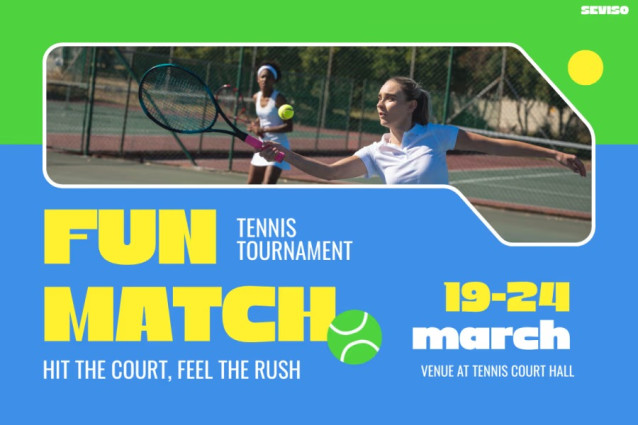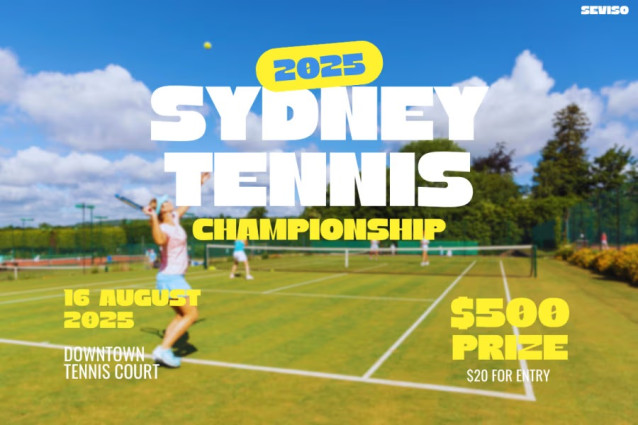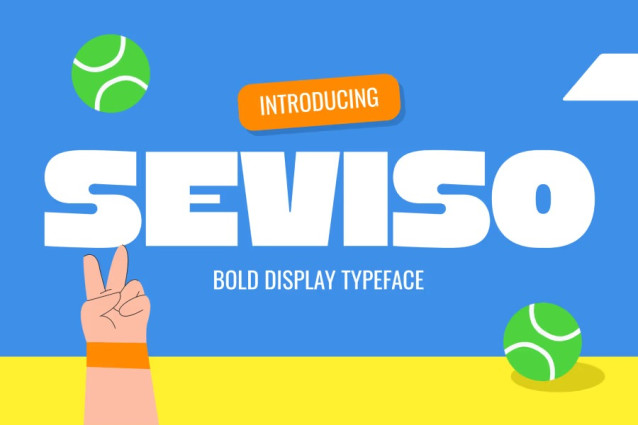
Seviso Font
Seviso Font is a bold and modern display typeface designed to deliver strong visual impact. It features sharp lines, clean shapes, and confident details that make every word stand out. Although the style is powerful, it stays friendly and readable, making it suitable for both large and small designs.
The font brings a strong sense of motion, and therefore it works beautifully for sports themes, active branding, and fast-paced social media posts. Its tight spacing creates clarity, while the balanced curves soften the bold edges. As a result, the font feels dynamic without losing structure. The design also performs well in digital platforms, so it’s ideal for Instagram reels, stories, and high-energy promotional graphics.
This typeface mixes sporty personality with clean modern geometry. Because the letters carry a sense of movement, your text immediately feels more alive. Furthermore, the consistent shapes allow the font to adapt to many layouts. Whether you are designing tournament posters, gym promotions, or youth-brand visuals, SEVISO keeps everything sharp and engaging.
Additionally, the font works well for merchandise, team numbers, event titles, schedules, and bold quotes. It also supports strong logo concepts because its structure remains simple yet striking. Moreover, the bold weight ensures that your message stays readable across various media, from mobile screens to large banners.